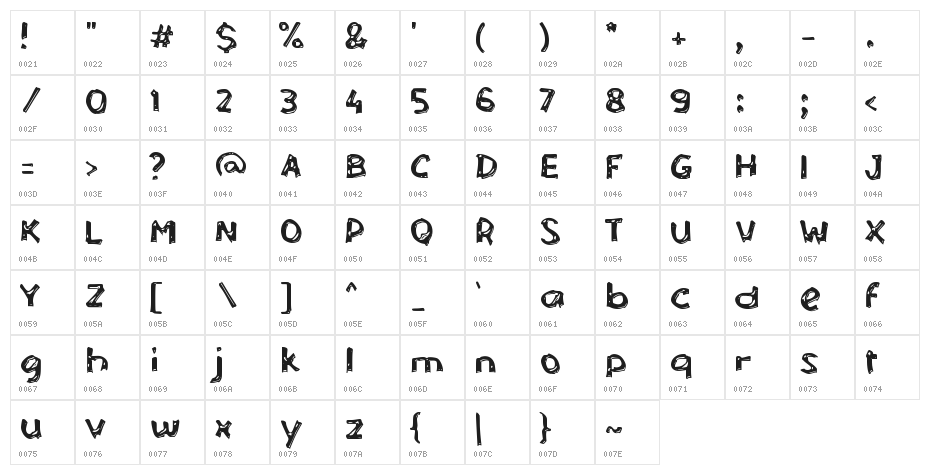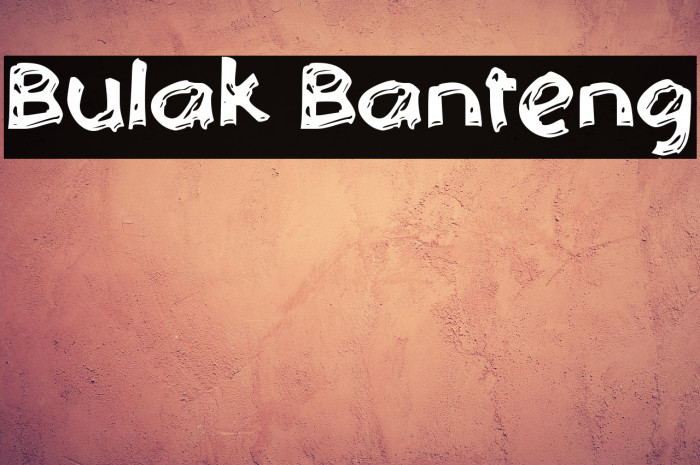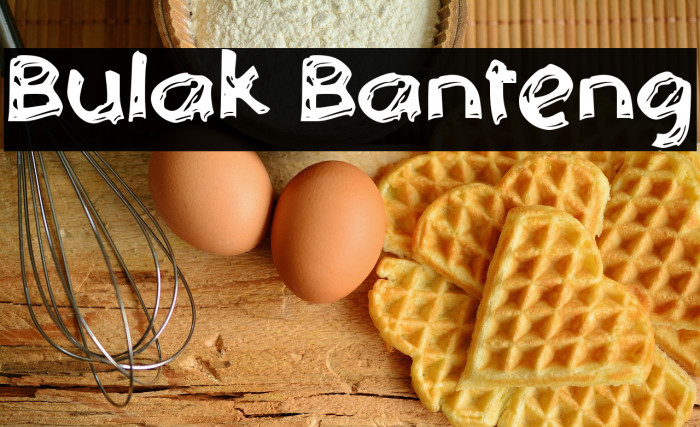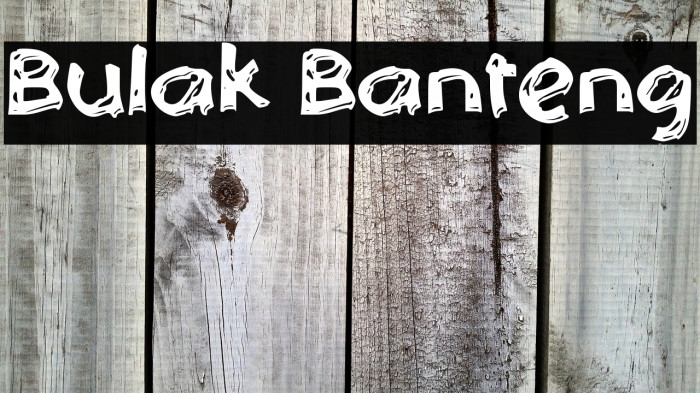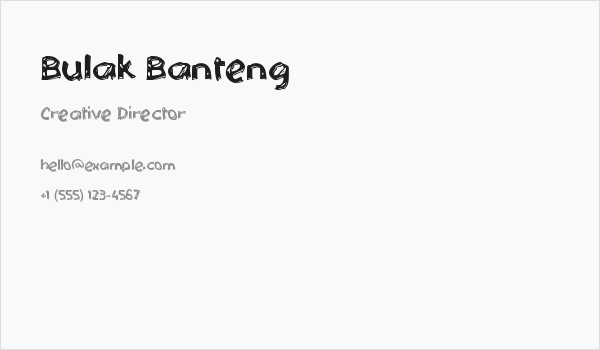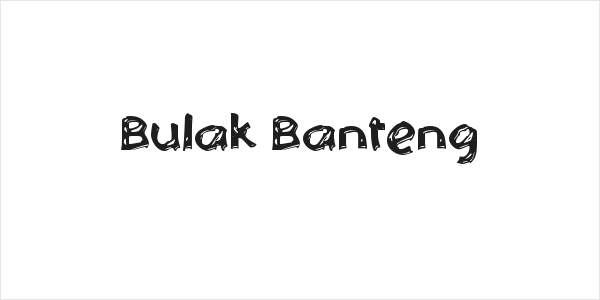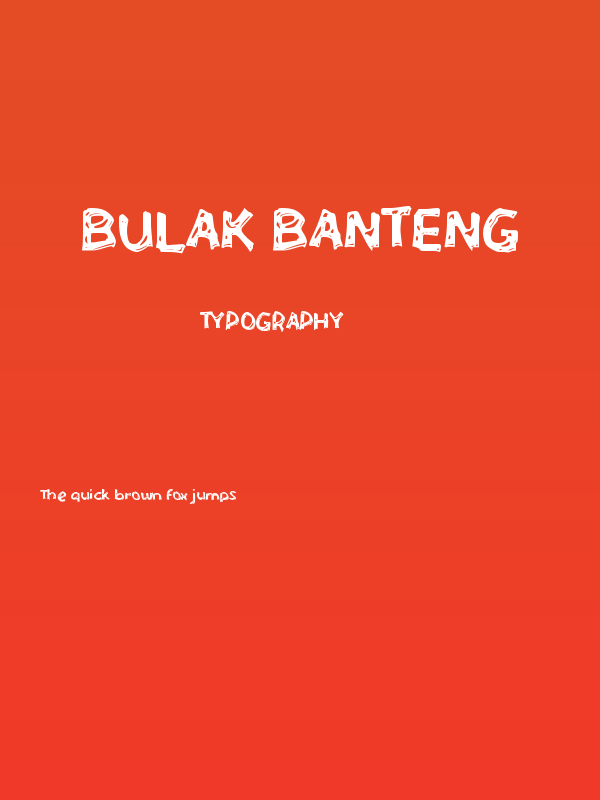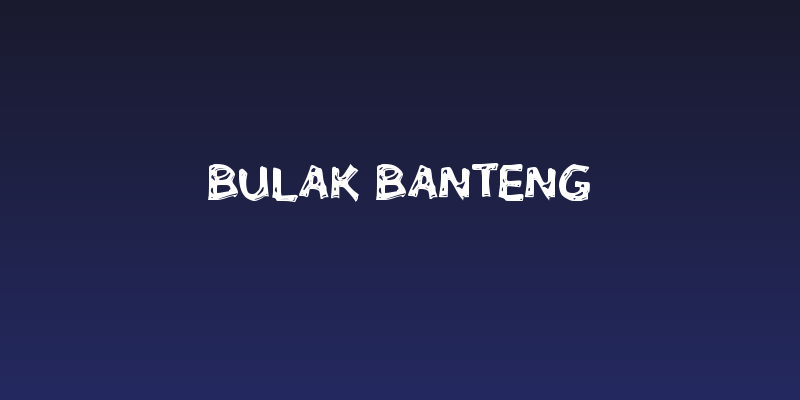
Bulak Banteng Font
Bulak Banteng Description
This font features a playful and artistic style, characterized by its hand-drawn appearance and uneven strokes. The letters have a bold, cartoonish quality with irregular edges and a slightly distressed look, giving it a dynamic and energetic feel. The uppercase and lowercase letters maintain a consistent style, with a whimsical flair that adds personality to the text. Numbers and special characters follow the same design, ensuring a cohesive look across all elements. This font is ideal for projects that require a fun and informal touch.
Overall StylePlayful, Artistic
Proposed ProjectsPerfect for children's books, comic strips, playful branding, and creative posters.